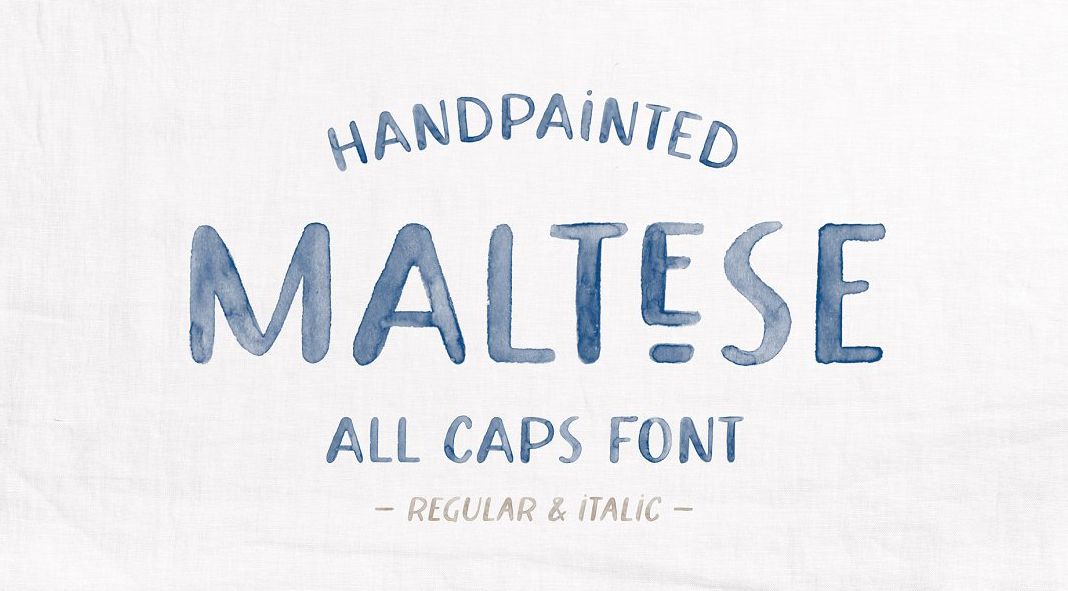
Check out Maltese, a handpainted typeface with regular and SVG watercolor styles and italic versions.
Designed and published by The Paper Town, Maltese is a hand-crafted SVG font that boasts an exquisite watercolor texture and a transparent charm inspired by the ocean! This all-caps family comes in two distinct forms – SVG & Solid, with both regular and italic styles. Let’s take your designs to new depths of creativity with this gorgeous typeface.
Maltese has been meticulously painted and edited to preserve the original watercolor texture and details. Every character of this font was individually crafted so that both regular and italic versions have a distinct appearance. With Maltese, your work will be infused with a vibrant realistic watercolor vibe as well as an exquisite handmade aesthetic!
Installing the SVG version of this font is just like any other standard font, and it can be used in a variety of colors on almost any type of background. For added authenticity and texture, we’ve hand-lettered the solid version with an old-fashioned dip pen; then vectorized it to preserve that classic calligraphy feel from ink on paper.